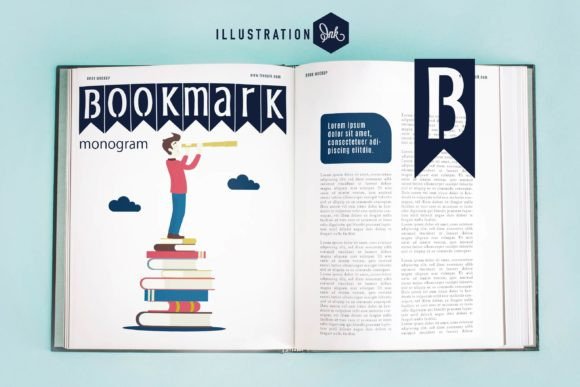
Monogram Font for Modern Bookmark Designs
- Use it sparingly for maximum impactโavoid overloading a design with too much monogrammed text.
- Pair it with complementary fonts that balance its boldness with subtlety.
- Test its performance across different mediums, including print and digital screens, to ensure readability and consistency.